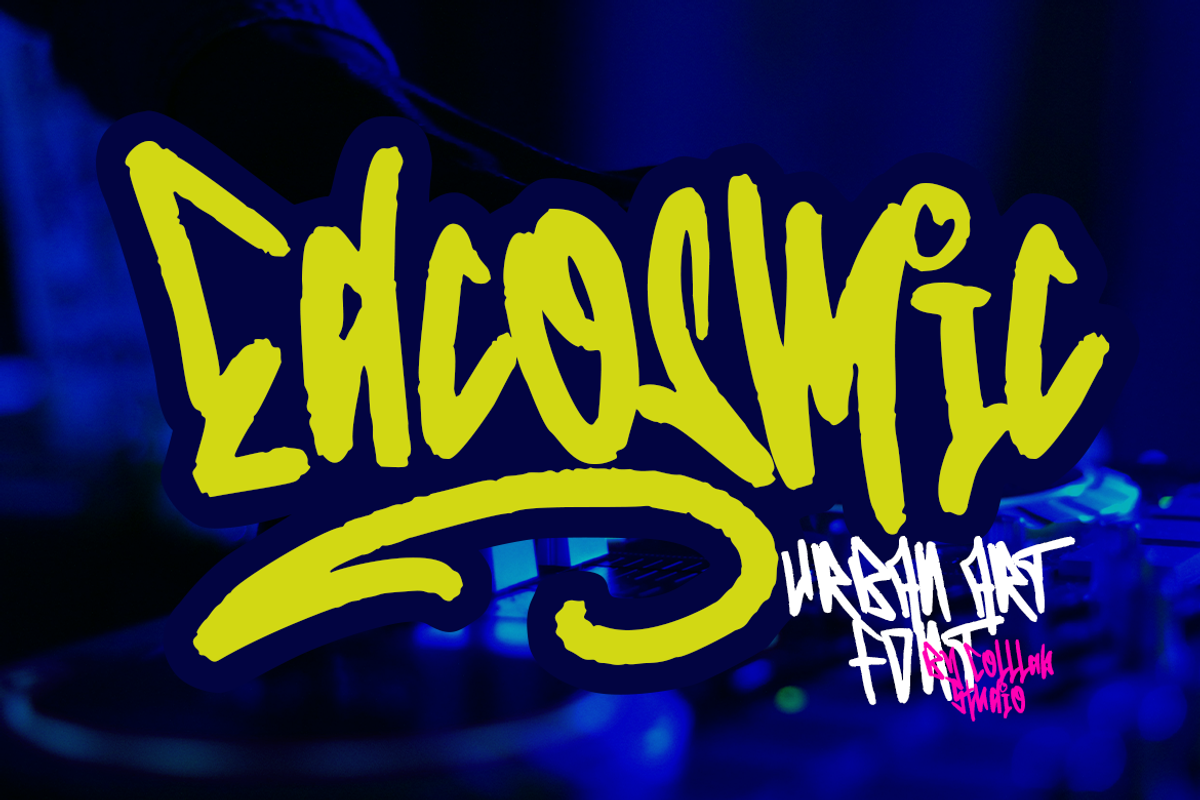
Edcosmic | An Urban Art Font Free Download is a bold and creative typeface inspired by street art and graffiti culture. Featuring unique, angular shapes and urban-inspired design elements, this font is perfect for music posters, urban branding, event flyers, and any project that requires an edgy, modern aesthetic.
Edcosmic | An Urban Art Font Free Download brings the energy and creativity of street art directly into your typography. Whether you're designing for a music festival, creating a rebellious brand identity, or crafting bold posters, this font brings a dynamic, urban flair to your work. Download it today and infuse your next project with the raw creativity of Edcosmic!